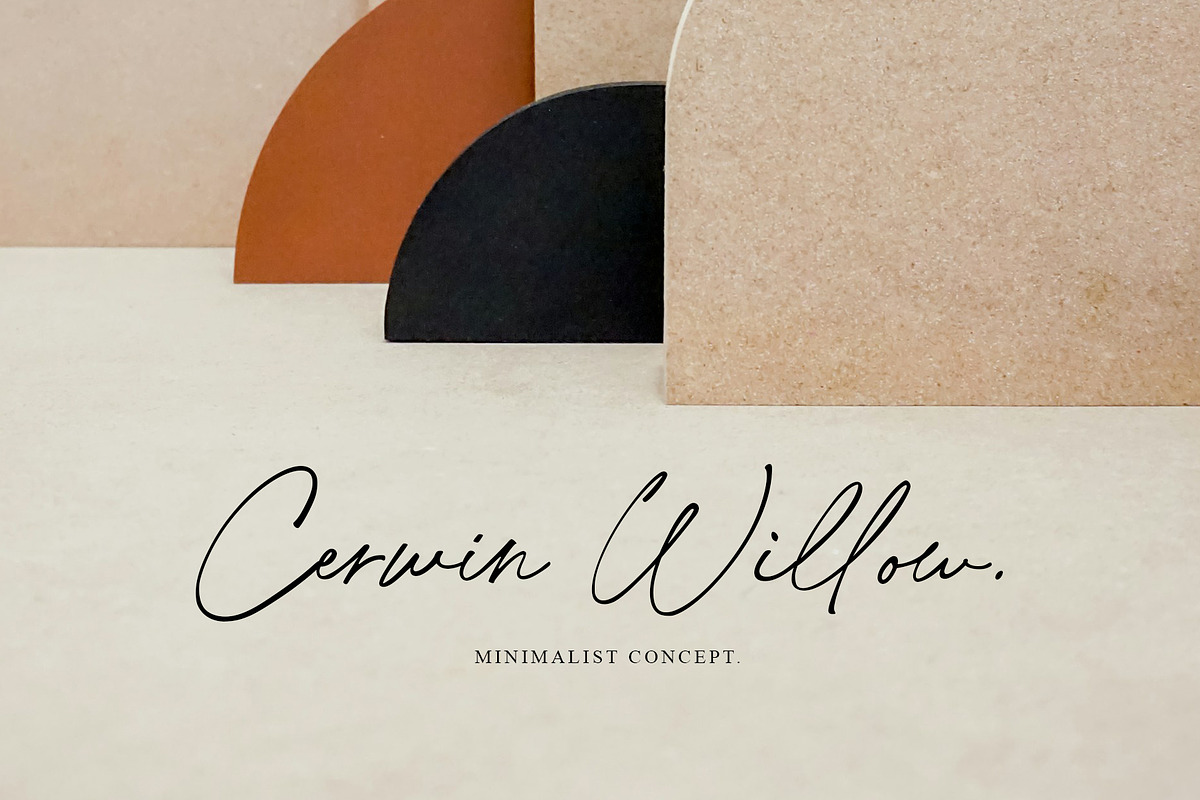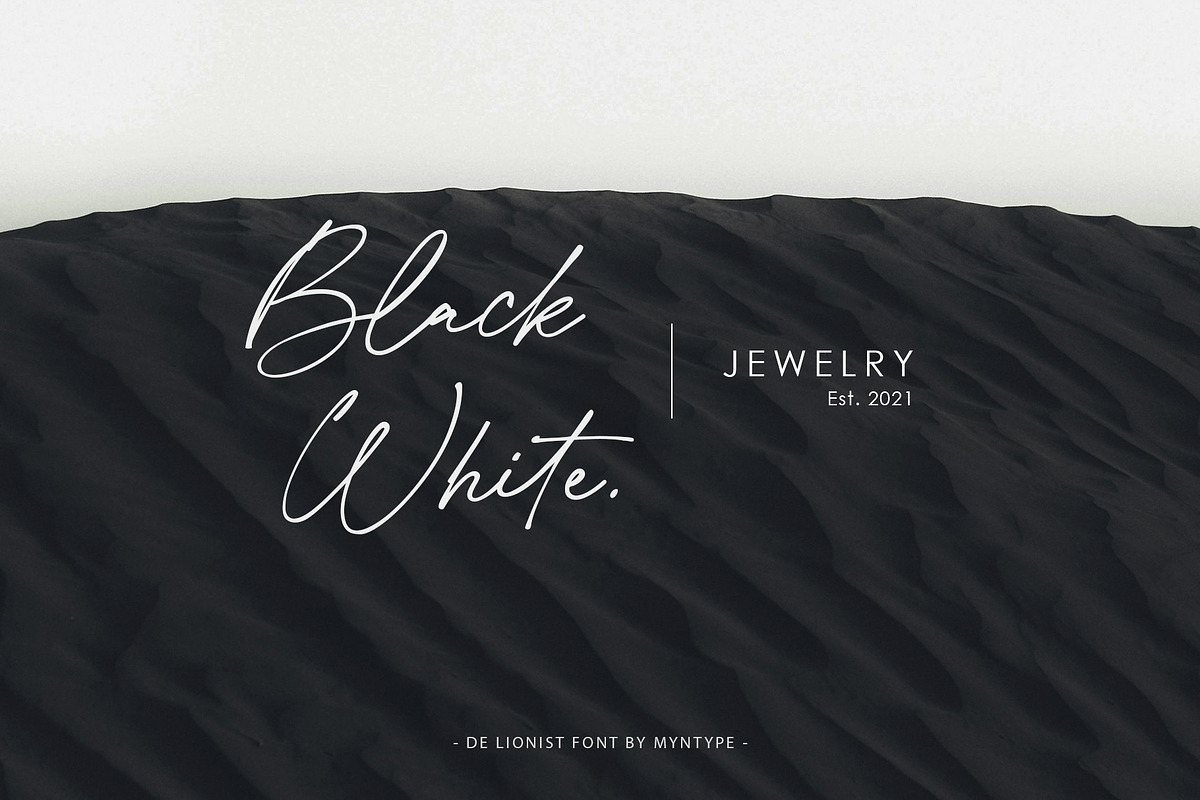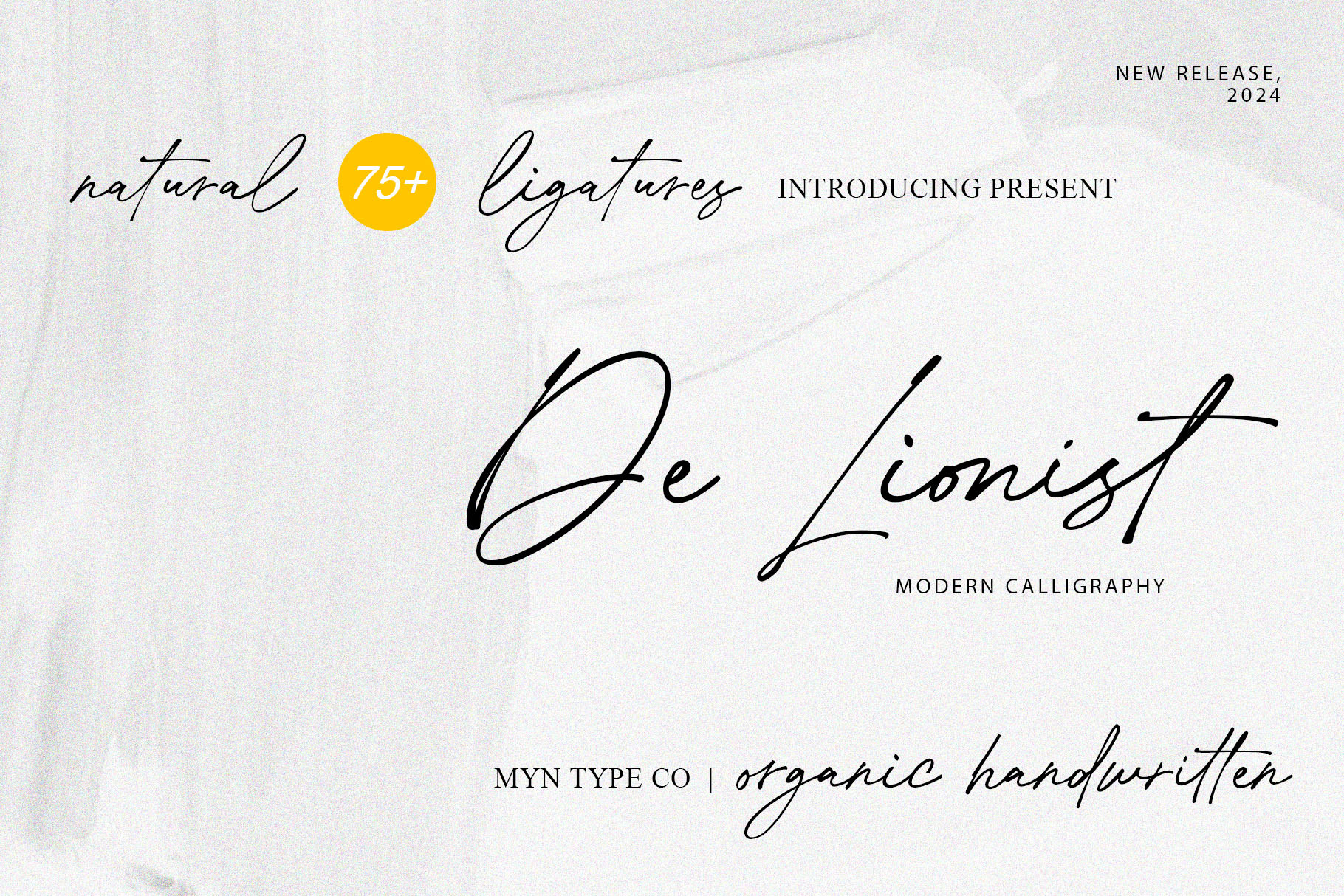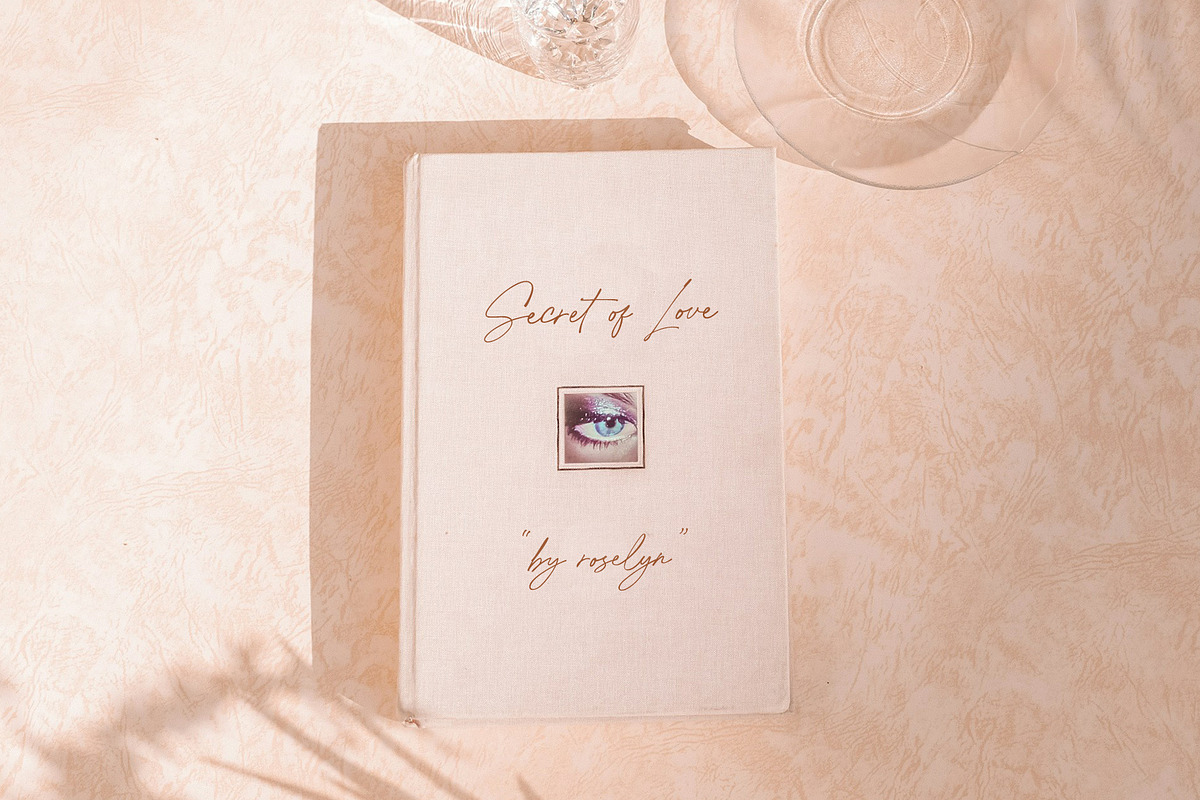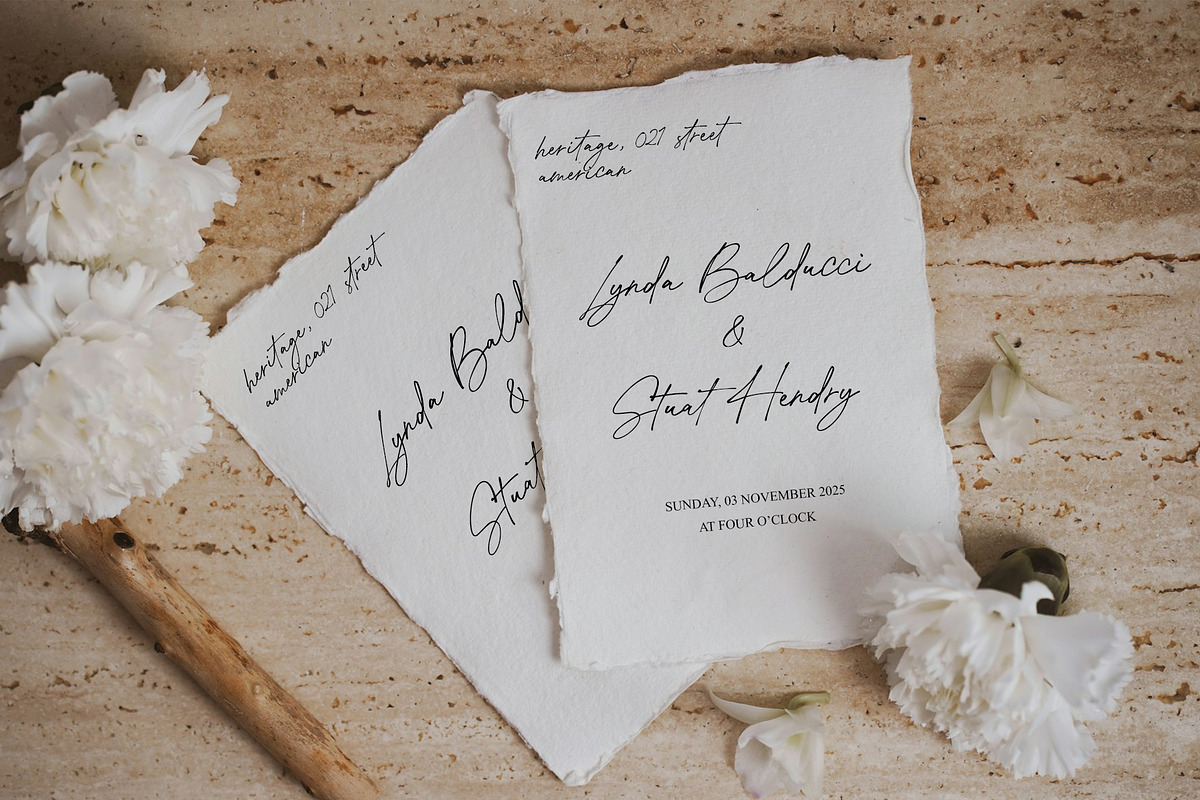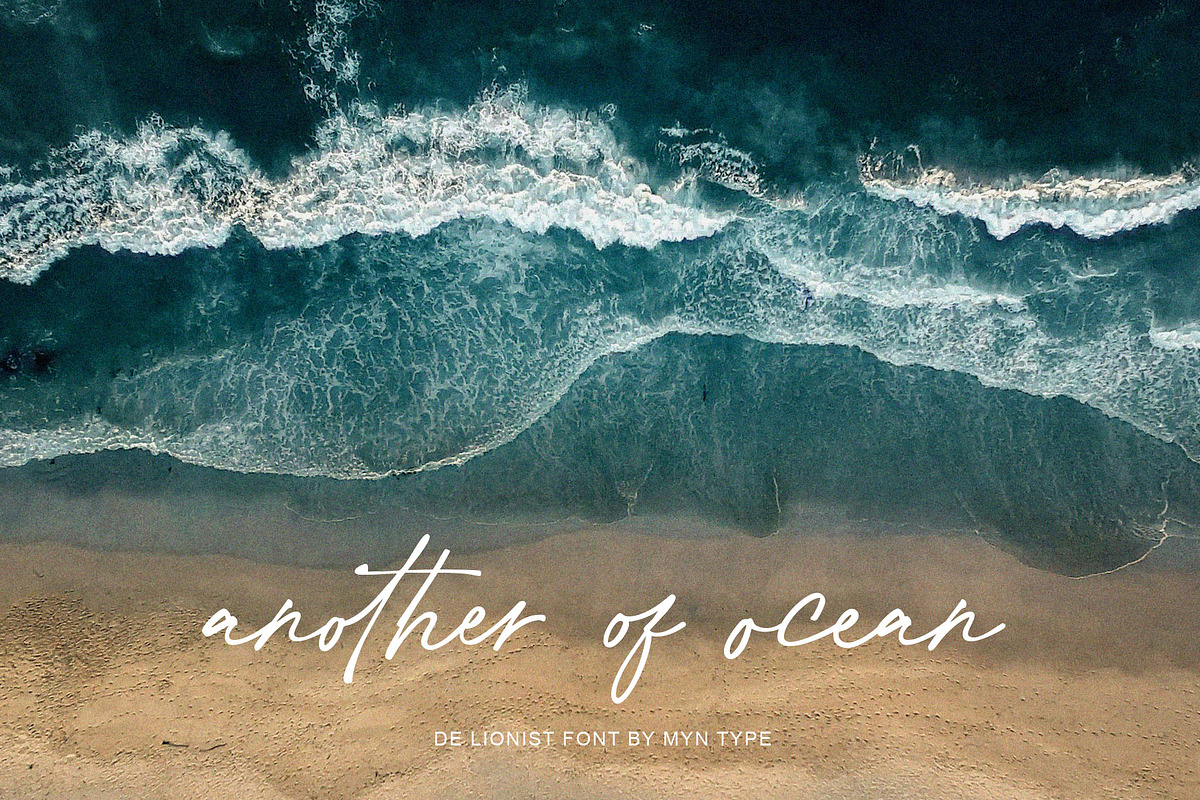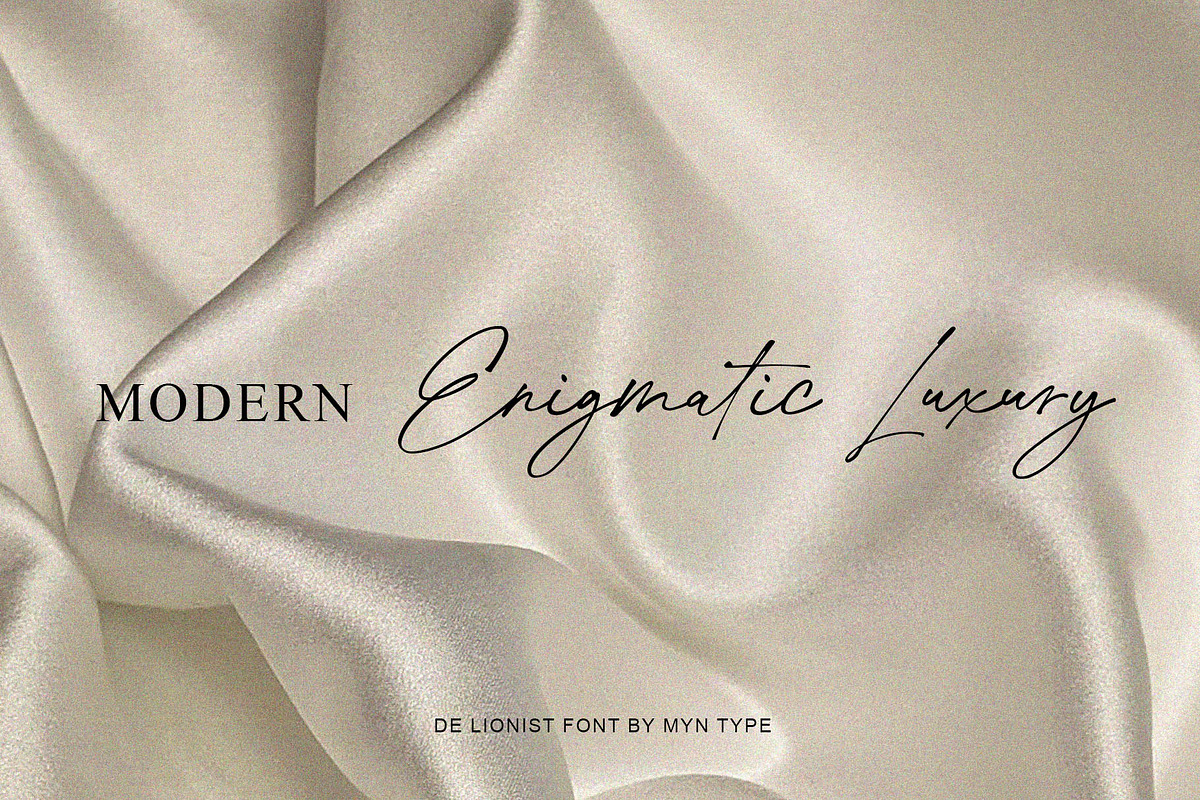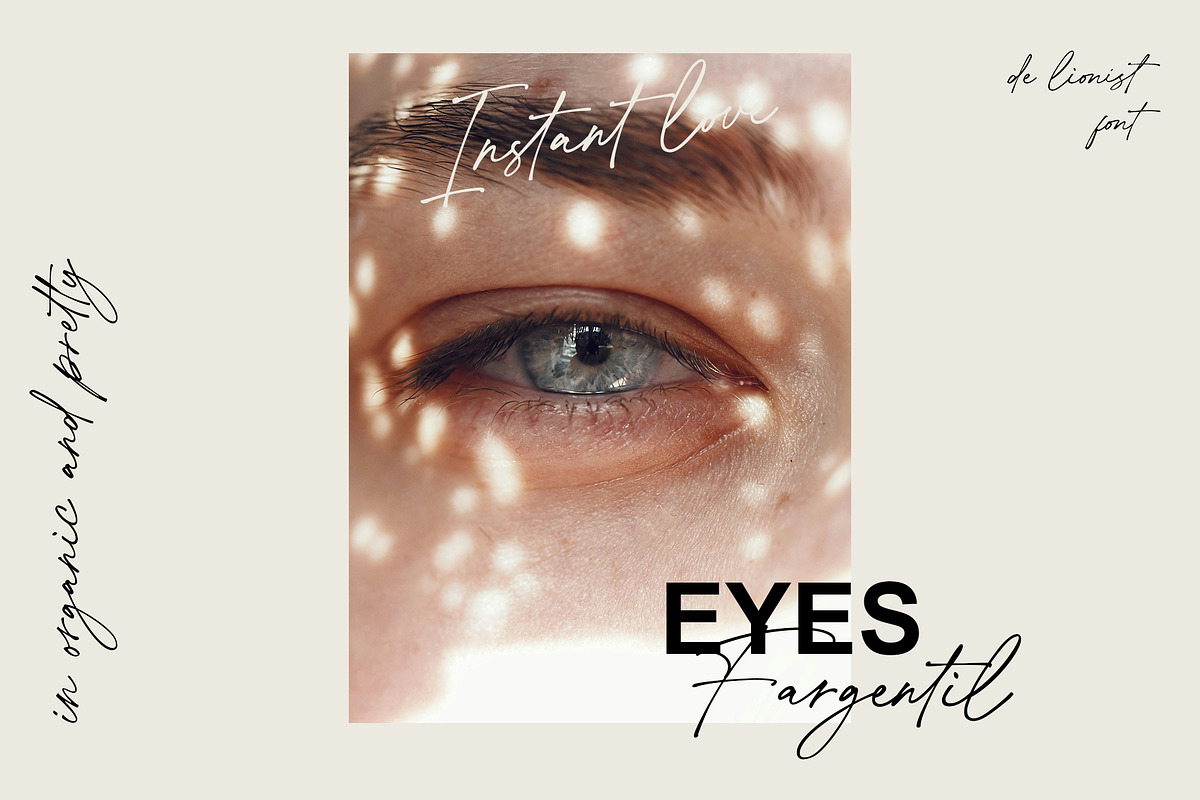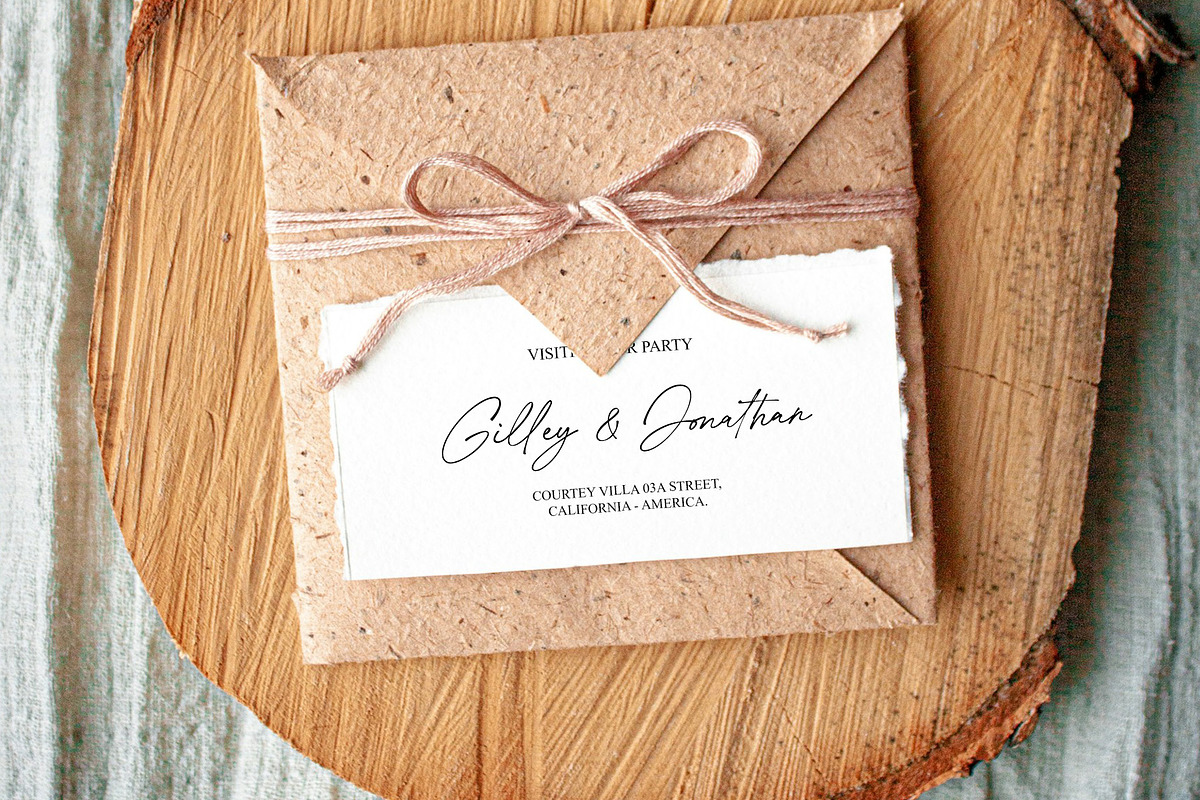
De Lionist - Handwritten Script Font
De Lionist is a natural handwritten scripts thats captivating fusion of artistry and functionality with lots ligatures. This font, often inspired by calligraphy and historical writing styles, weave letters together in a dance of elegant connections.
This font perfect for wedding desing, branding, calligraphy logos, display product, invitation design, and other design elements that require a historical writing styles and elegant touch.